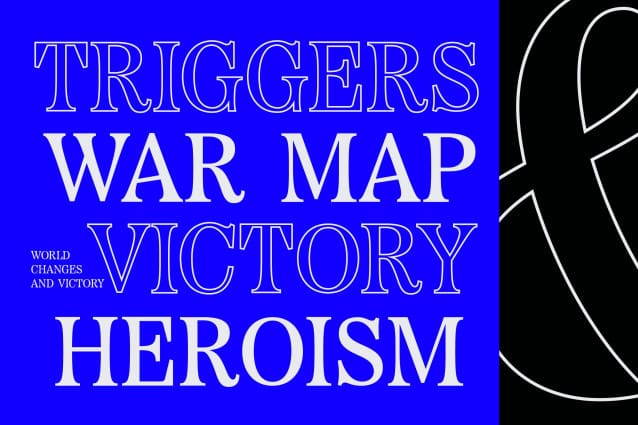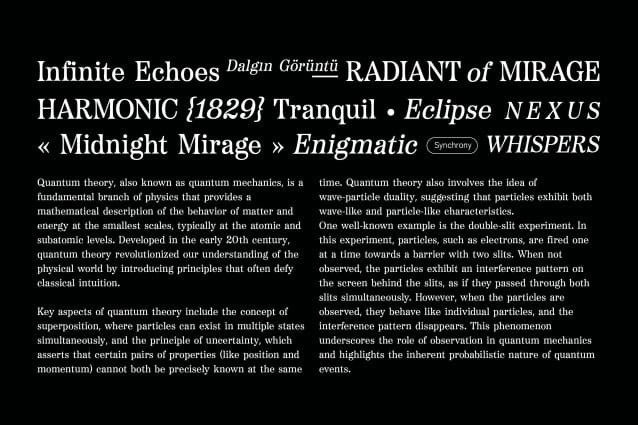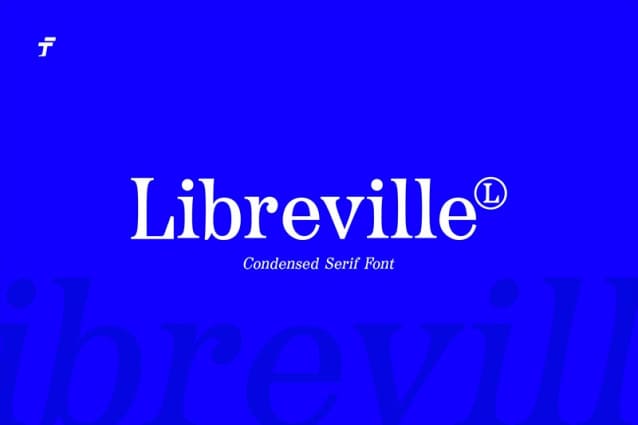
Libreville Font
Libreville Font is a modern serif typeface designed to meet contemporary design demands. With its sleek and elegant characters, this font effortlessly combines sophistication with excellent readability. The unique aspects of Libreville set it apart, making it a standout choice for a wide range of design projects.